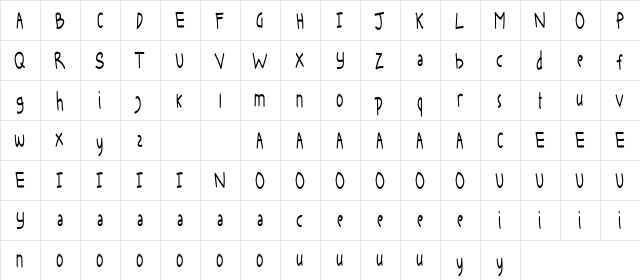
Keira Dreamer DEMO Sans
| Style | Sans |
| Foundry | edric studio |
| Designer | Yasri |
Design Context for Keira Dreamer DEMO Typeface
Keira Dreamer DEMO is a composed and adaptable typeface that performs quietly and consistently across a wide range of design contexts.